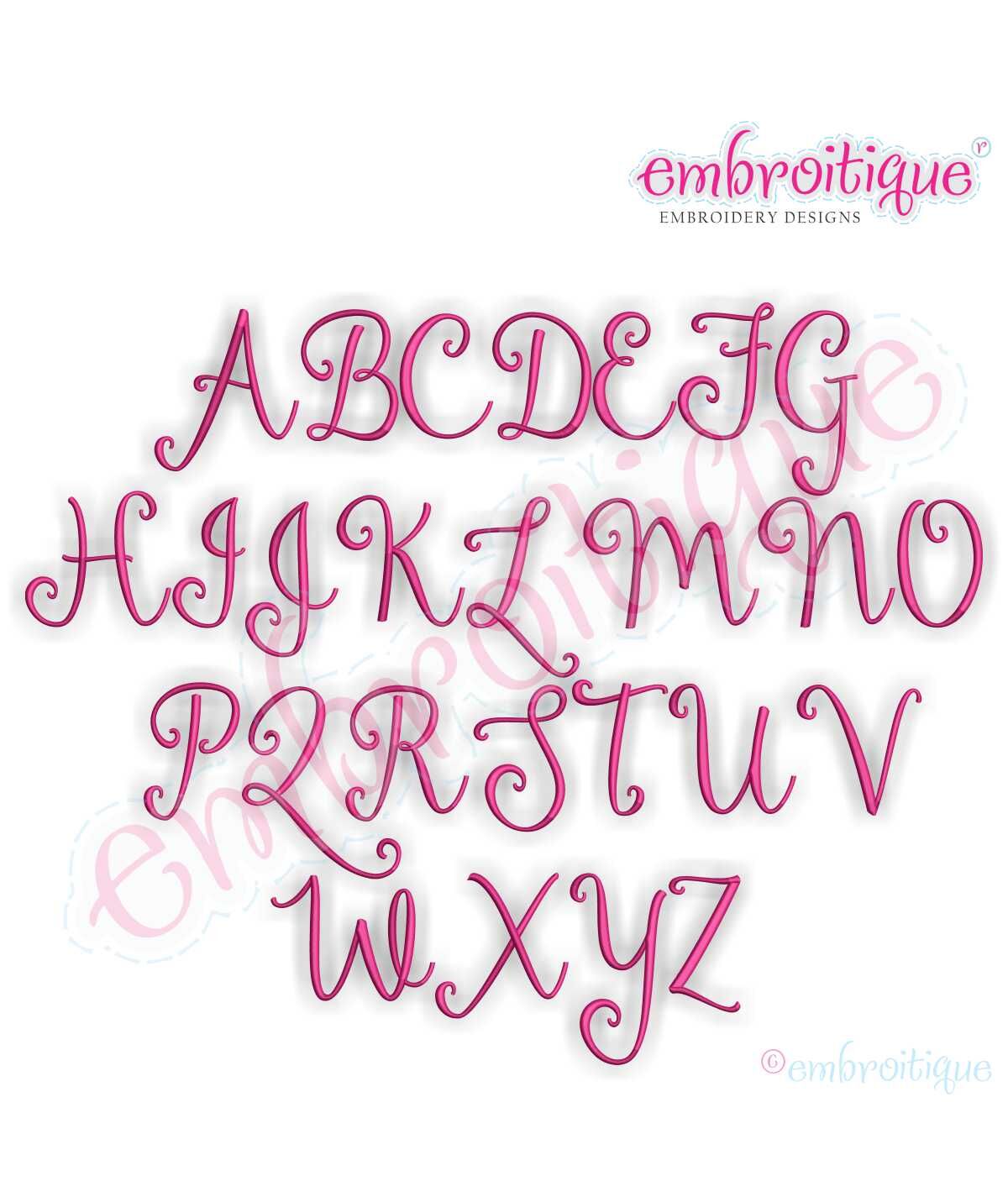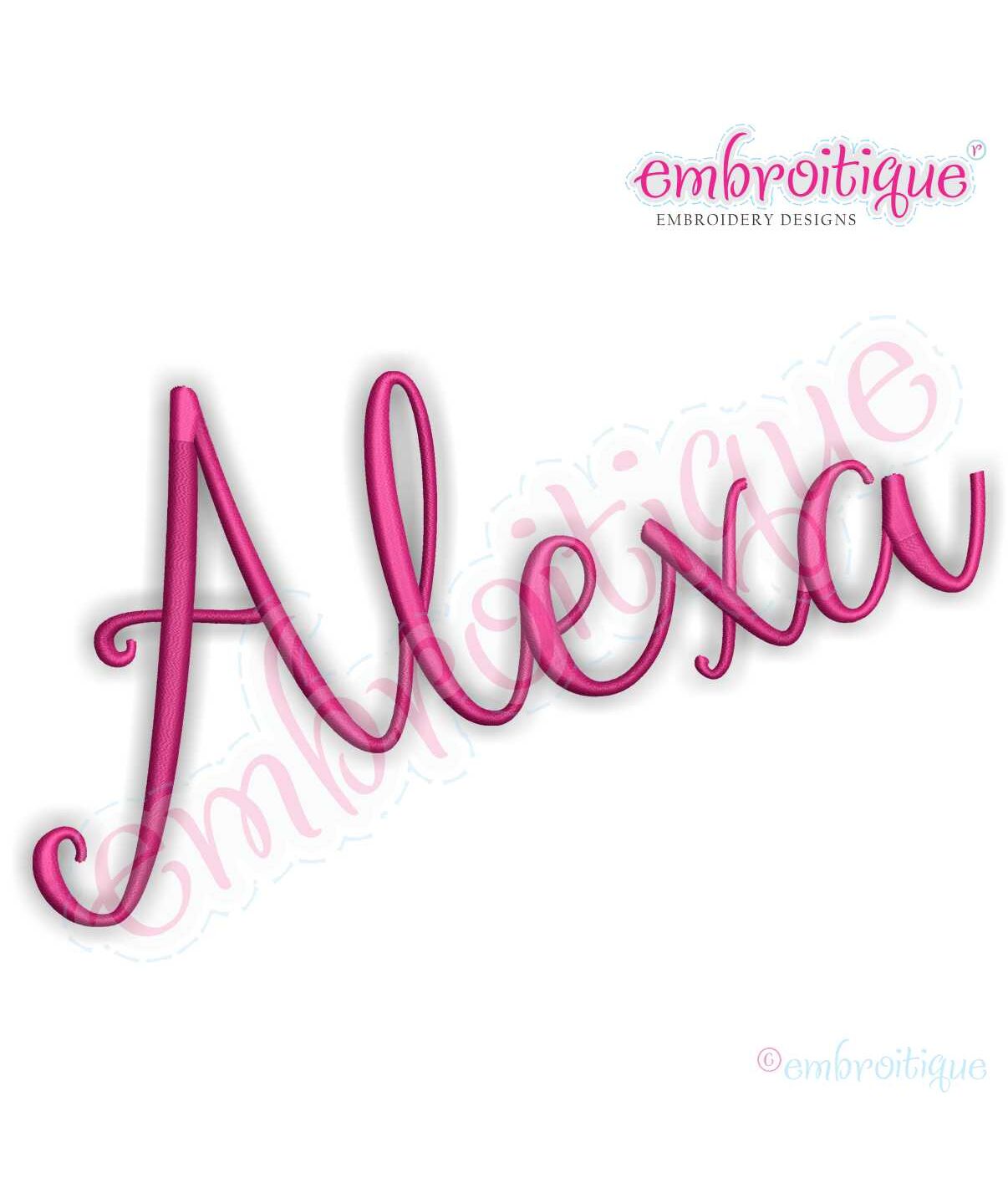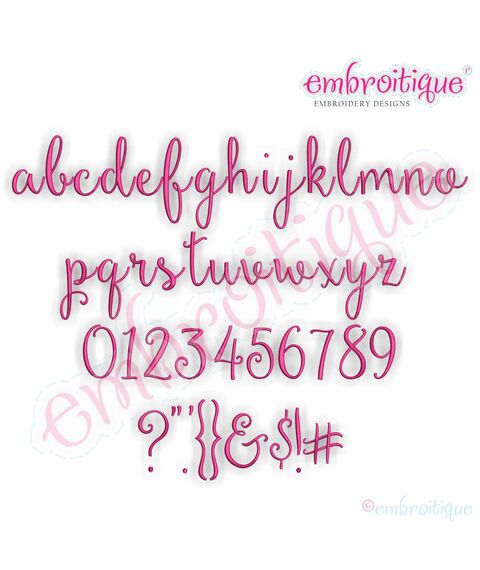
Alexa Monogram Set - Beautiful hand drawn calligraphy font for embroidery
EMBTQ Alexa Small
A beautiful modern calligraphy embroidery monogram font. Â Classy and elegant with a touch of whimsy. Â This is a perfect addition to your embroidery monogram font collection! Â Â
Aa-ZZ 0-9 Â ?".'{}&$!#
A beautiful modern calligraphy embroidery monogram font. Classy and elegant with a touch of whimsy. This is a perfect addition to your embroidery monogram font collection!
Aa-ZZ 0-9 ?".'{}&$!#